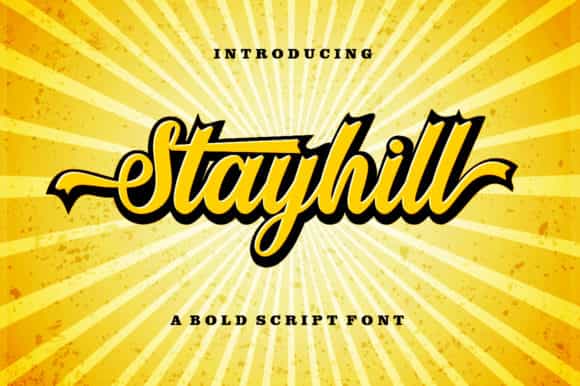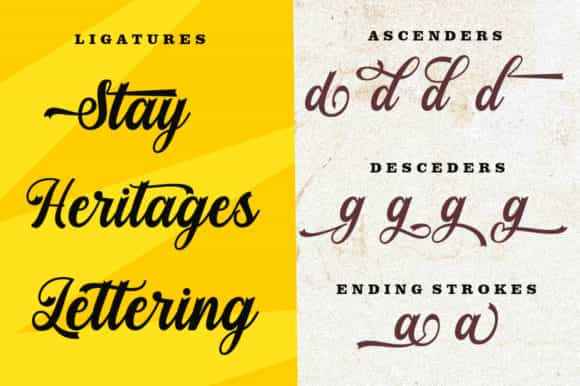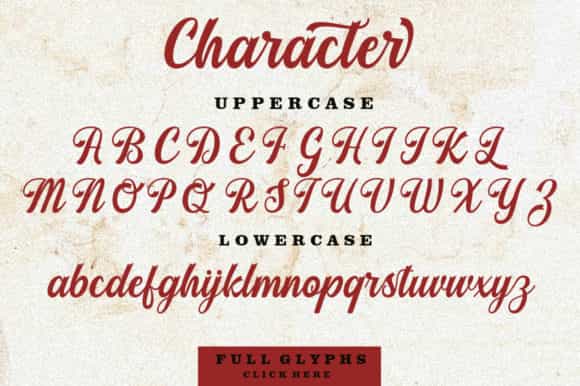
Discover Stayhill Bold Script Font, part of the Calligraphy Retro collection—a versatile and unique font perfect for adding a personal touch to your projects. Download it for free and enjoy crafting designs with style, from invitations to social media posts. This font is available exclusively for personal use, giving you the freedom to create without limits. Unlock your creativity with Stayhill Bold Script Font today!
Inspired by retro aesthetics and infused with a handwriting touch Stayhill Script boasts alternative swashes and features like stylistic alternates, ligatures and swashes for endless creative possibilities. Equipped with OpenType features such as styles, style sets and versatile design elements.